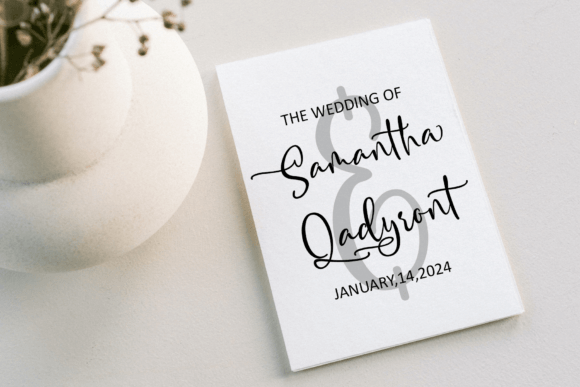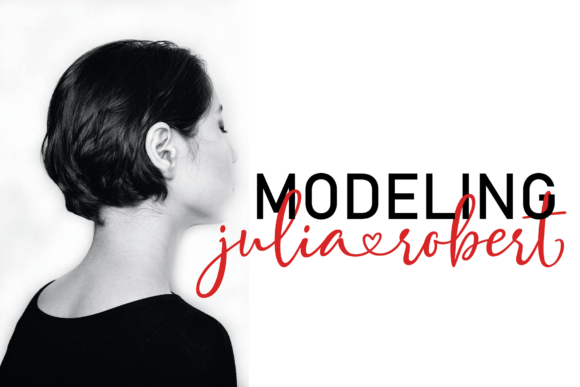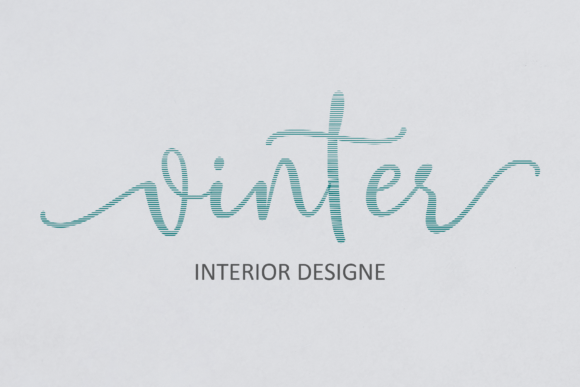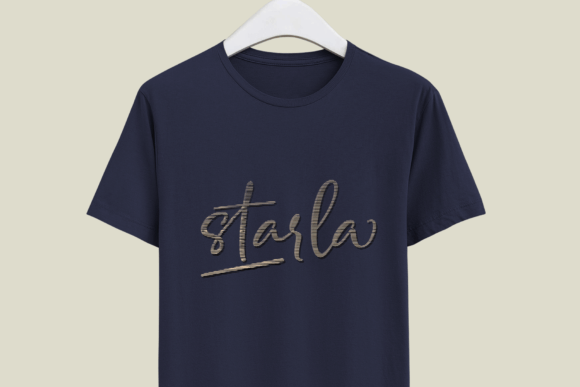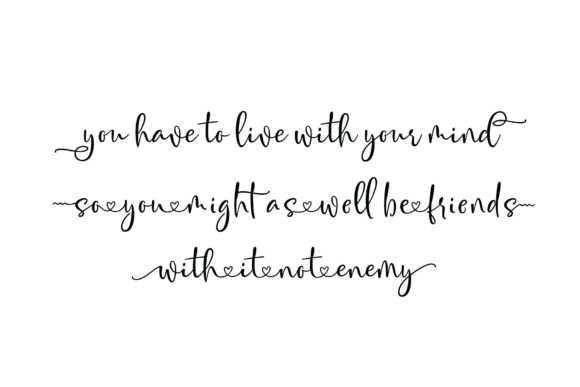
Crystally Font
About Crystally Font
Crystally is a dazzling script font that captivates with its intricate details and neatly crafted design. This font stands out as a wonderful asset to your font library, possessing the ability to enhance a wide array of creative projects. Whether your focus is on elegance, sophistication, or a touch of glamour, Crystally has the potential to elevate any creation.
The highly detailed and dazzling nature of Crystally makes it a versatile choice for various design contexts. Its script style exudes a sense of refinement and beauty, making it suitable for projects that demand a touch of sophistication.
In terms of formal applications, Crystally can be employed in invitations, labels, packaging, and menus to add a dash of elegance. The font’s intricate details contribute to a luxurious and visually appealing aesthetic, making it a standout choice for special occasions.
For creative projects such as branding, logos, and fashion, Crystally’s detailed script style becomes a defining element. It adds a sense of glamour and uniqueness, making your brand or design stand out in a crowded market.
Whether you’re working on greeting cards, magazines, books, or any other design project, Crystally brings a dazzling and detailed script option to the table. Its ability to convey a sense of luxury and intricacy makes it a valuable addition to your toolkit.
In summary, Crystally is not just a font; it’s a design tool that adds a dazzling and highly detailed script aesthetic to your text. Its versatility and attention to detail make it suitable for a variety of projects, ensuring that your creations exude sophistication and charm.